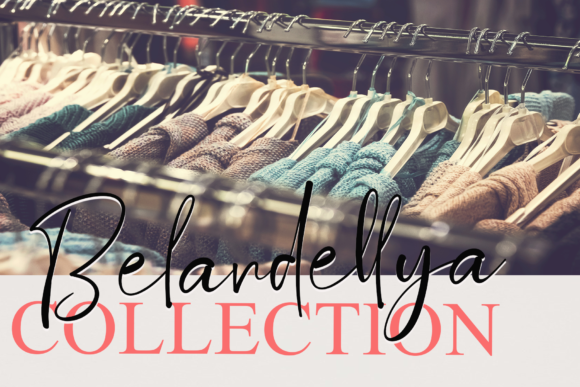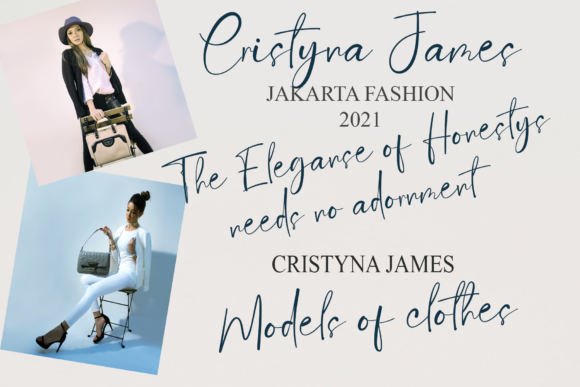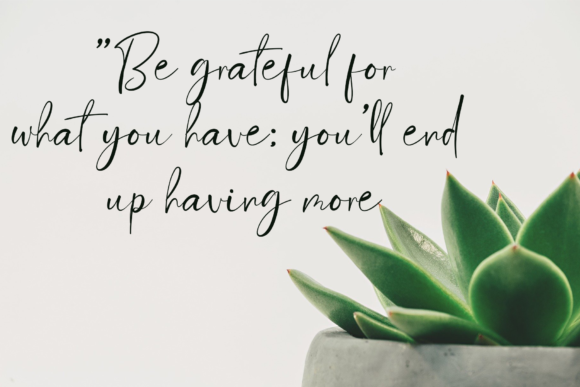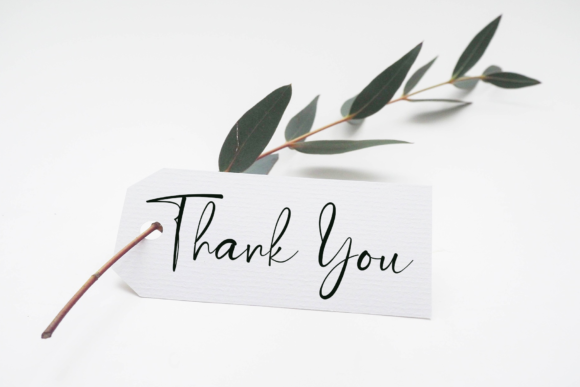
About Ketty Font
Ketty is a simple but authentic handwritten font. This is the best choice for creating logos, greeting cards, branding t-shirts, and interesting quotes. Don’t be afraid to get creative with this font because the more you create, the more extraordinary it becomes.